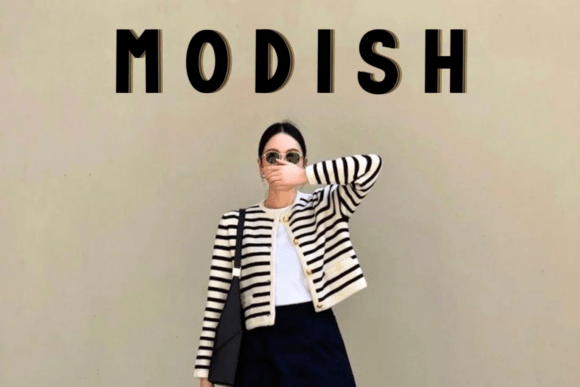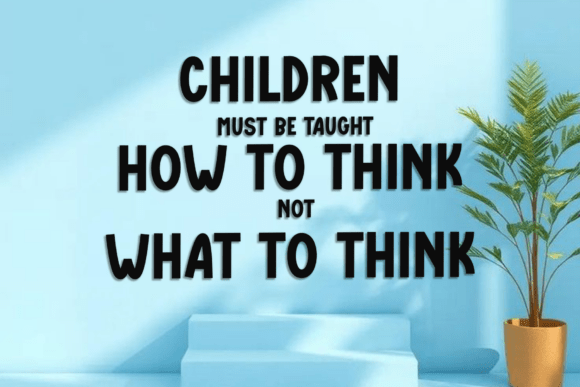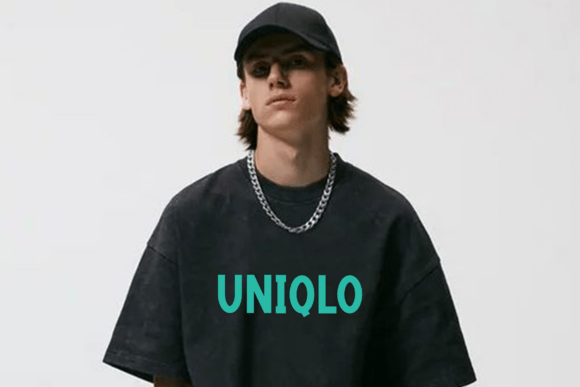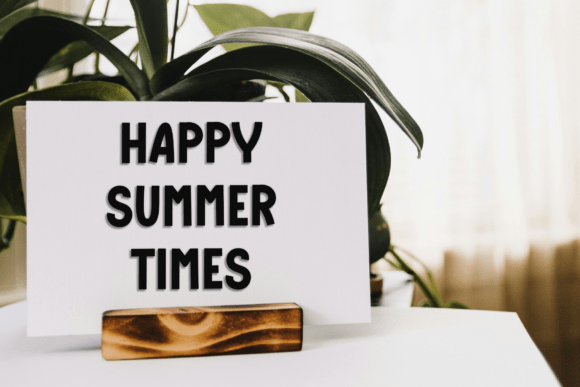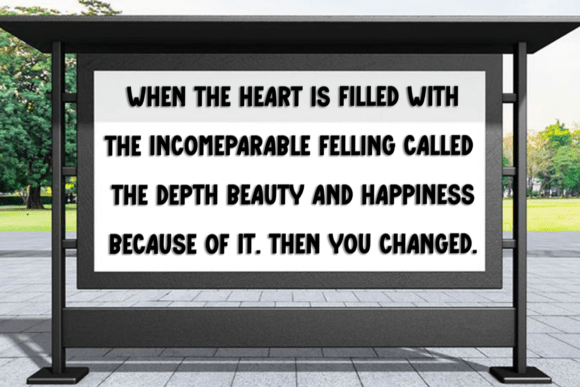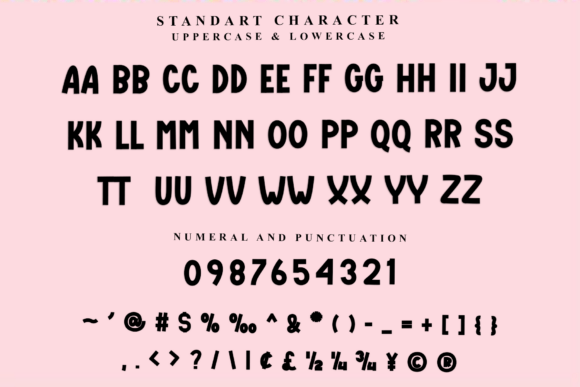
Introduction to Pickle Juice Font
As a designer, there’s nothing quite like the thrill of discovering a new font that sparks creativity and inspires your next project. For me, that moment came when I stumbled upon the Pickle Juice Font – a beautiful and eye-catching typeface that adds a unique touch to any design. Its soft, distinctive strokes make it a standout among other fonts, and its versatility is simply unmatched.
So, what makes the Pickle Juice Font so valuable to designers? Its unique character and soft strokes make it perfect for a wide range of creative projects, from wedding invitations to digital signage. With its free download option and compatibility with various applications, this font is an excellent addition to any designer’s toolkit. In this article, we’ll dive deeper into the world of the Pickle Juice Font and explore its many uses and benefits.
Pickle Juice Font
- Unique and quirky design with a transparent background, perfect for creative projects.
- Designed to be versatile and adaptable, making it suitable for various creative projects, from logos to typography.
Honest Review: Pickle Juice Font
I recently stumbled upon the Pickle Juice Font, and I must say it’s an interesting addition to my design resource collection. This free download boasts a high-quality design that’s perfect for creative projects that need a unique touch.
- The font’s bold, quirky style is sure to stand out in any design project.
- The transparent background allows for seamless integration with various design elements.
- The font’s versatility makes it suitable for a wide range of creative projects, from branding to editorial design.
- The font’s bold style may not be suitable for all design projects, particularly those that require a more subtle approach.
- The font’s quirkiness may not appeal to all designers, particularly those who prefer more traditional or classic fonts.
Overall, I’m impressed with the Pickle Juice Font’s high-quality design and versatility. While it may not be the perfect fit for every design project, it’s definitely a valuable addition to any designer’s toolkit.
Pickle Juice Font
Tips for Getting the Most Out of Pickle Juice Font
For the best results, use the Pickle Juice Font in conjunction with a high-quality image or design element. Experiment with different font sizes and styles to create a visually appealing design. You can also download the Pickle Juice Font for free to use in your creative project.
The Pickle Juice Font is a versatile design resource suitable for a variety of creative projects, including social media graphics, blog posts, and marketing materials. Its unique style and high-quality design make it an ideal choice for designers looking to add a creative touch to their work.